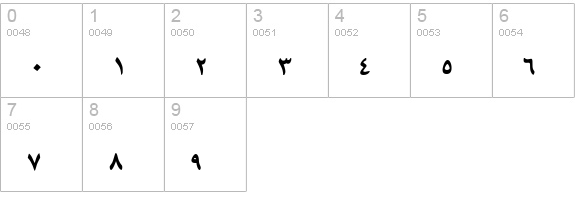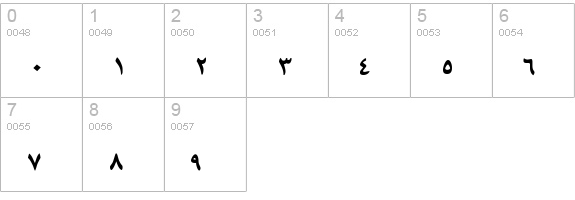
B Mashhad Bold Font Details
B Mashhad Bold is a strong, high-contrast variant in the B typeface family \xE2\x80\x94 well suited to headlines, attention-grabbing titles, and strong calls-to-action.
B Mashhad Bold is a striking and bold font that exudes confidence and sophistication. With its clean lines and strong presence, this font is perfect for making a statement in headlines, titles, and branding materials. The thick strokes and sharp angles give B Mashhad Bold a modern and edgy look that commands attention. The best part is that B Mashhad Bold is completely free for personal and commercial use. You can easily download this versatile font at FontsMarket.com and incorporate it into your projects without any restrictions. Whether you're designing a poster, a logo, or a website, B Mashhad Bold will add a touch of boldness and style to your work. Don't miss out on this fantastic font that will elevate your designs to the next level.